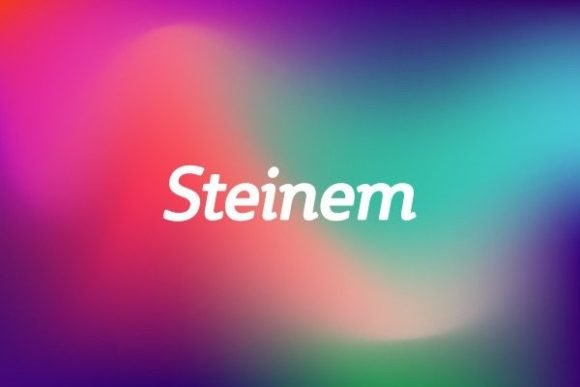
Steinem, Elegant Serif Font for Editorial & Luxury Branding
Steinem is a versatile font family featuring Roman, Italic, Bold, and Bold‑Italic styles, giving you typographic range from elegant body text to strong headings. Its balanced letterforms and neutral character make it suitable for a wide variety of applications — from clean editorial layouts to modern branding and product design.
- Complete font family with Roman, Italic, Bold, and Bold‑Italic — gives full typographic flexibility
- Neutral, timeless style — works across many design themes and palettes without overpowering other elements
- Easy to read and highly legible — suitable for both body text and headings, digital or print